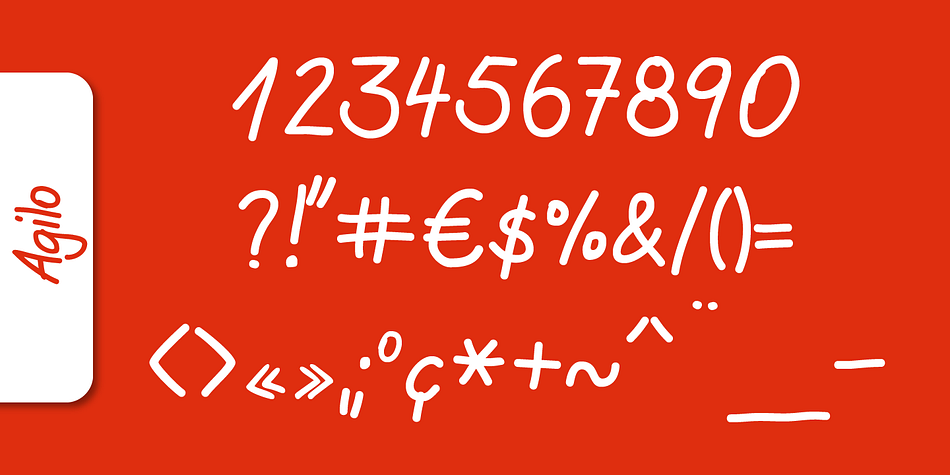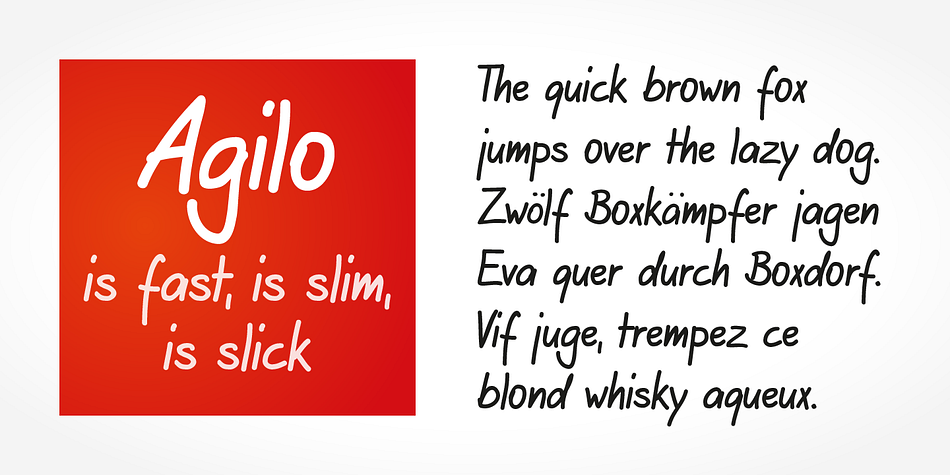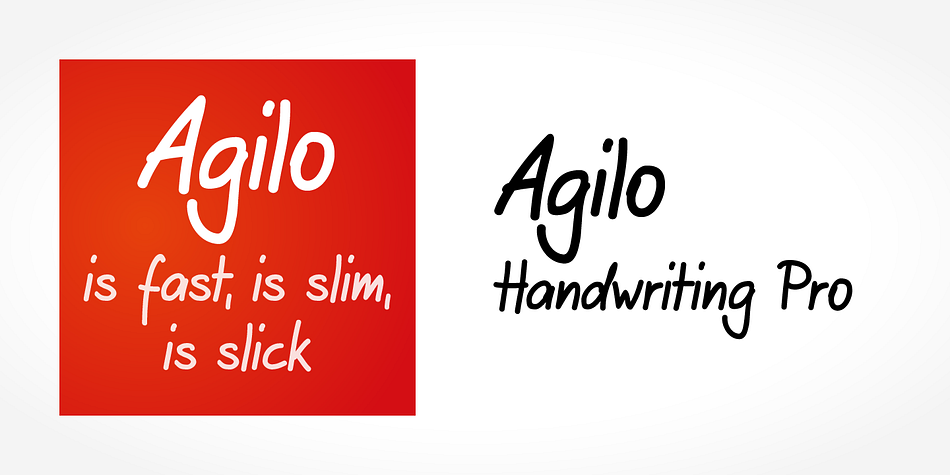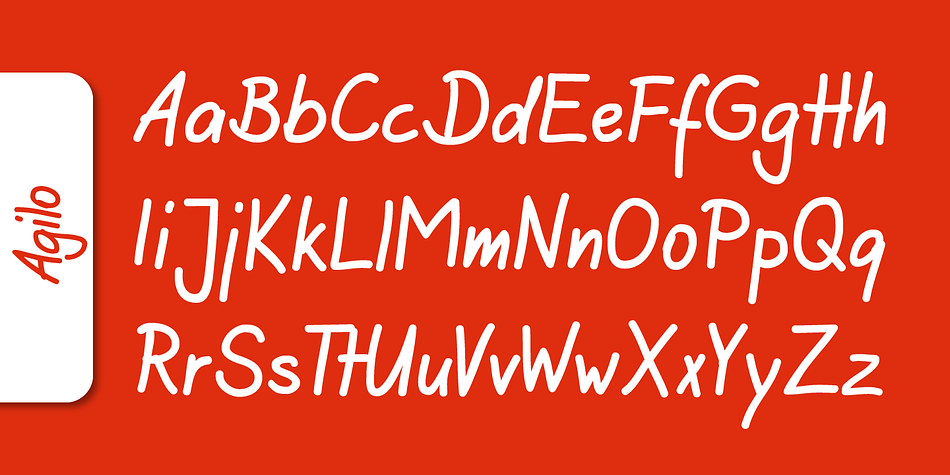
Agilo Handwriting Pro is a comic and hand drawn font published by SoftMaker.
Digitized handwriting fonts are a perfect way to give documents the “very special touch”. Invitations look simply better when handwritten than when printed in bland Arial or Times New Roman. Short handwritten notes look authentic and appealing. There are numerous occasions where handwritten text makes a better impression.
Agilo Handwriting Pro is an upright, medium weight handwriting font with a simplified, slightly sloped print (non-connecting) style that mimics true handwriting closely. Use Agilo Handwriting Pro to create stunningly beautiful designs easily.
This typeface comes with many pre-made ligatures and alternative characters for sophisticated typography – all easily accessible as OpenType features. A “random” feature even allows for automated random switching between variations of the same character, resulting in type that looks authentically handwritten.